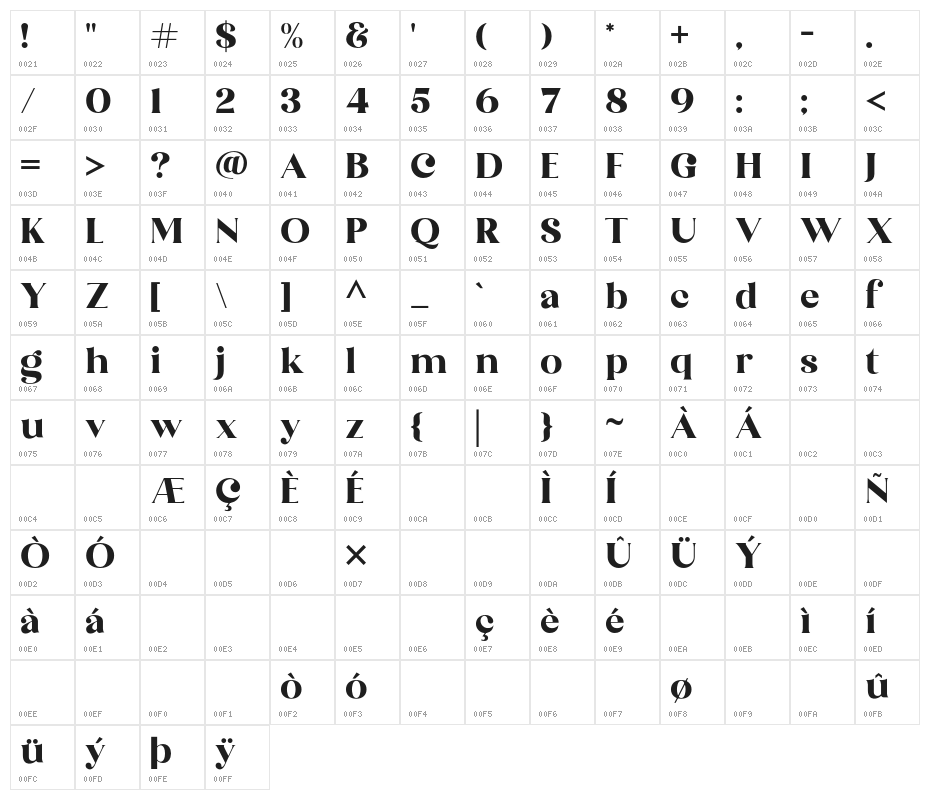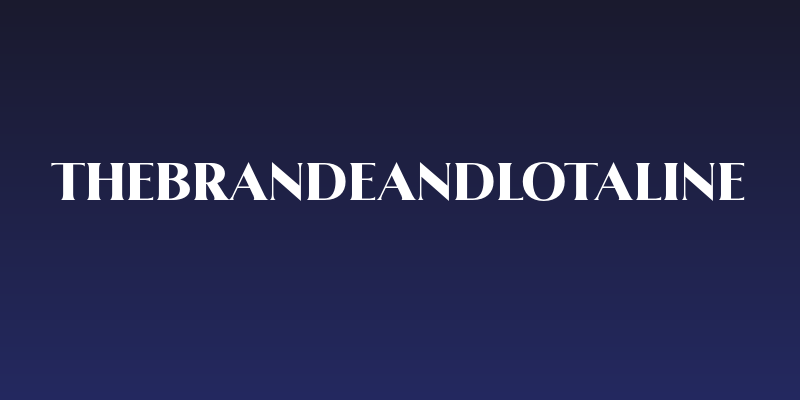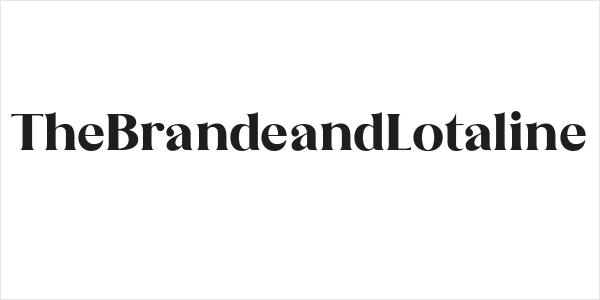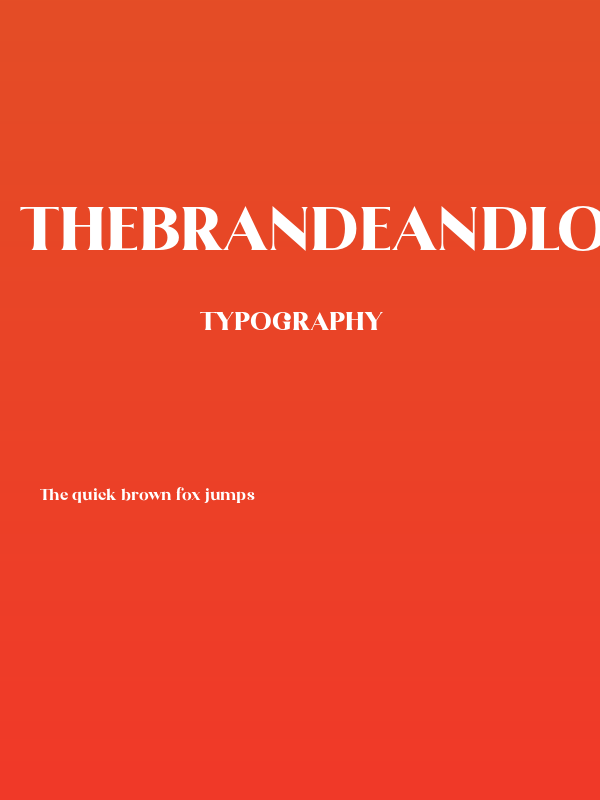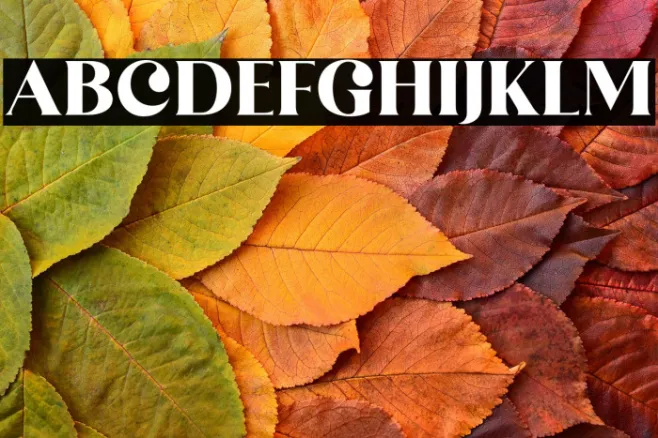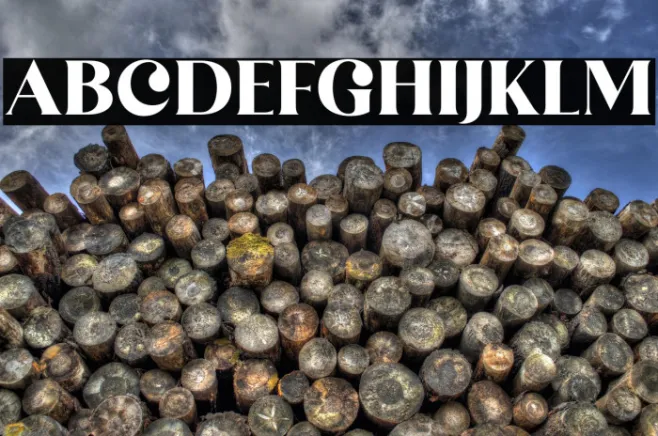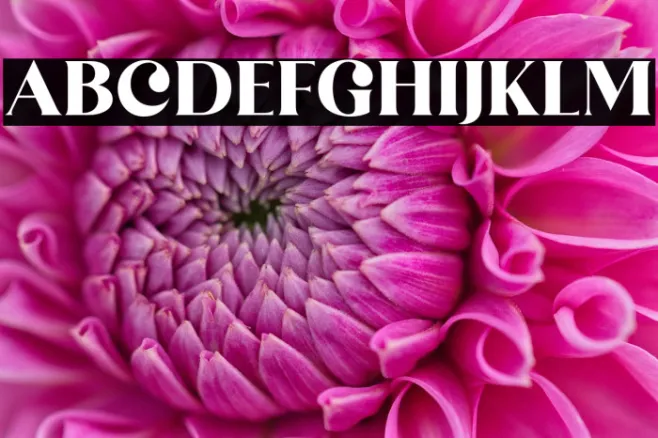
TheBrandeandLotaline Font
TheBrandeandLotaline Description
This font features a bold and striking serif style with high contrast between thick and thin strokes, giving it a dramatic and elegant appearance. The uppercase letters are particularly bold, with sharp, angular serifs that add a sense of authority and sophistication. The lowercase letters maintain a consistent style, with rounded forms that balance the sharpness of the serifs. The numerals are equally bold and maintain the high contrast seen in the alphabet, making them stand out clearly. Special characters are designed with the same attention to detail, ensuring a cohesive look across all glyphs. This font is ideal for making a strong visual impact, suitable for headlines and titles where readability and style are paramount.
| Proposed Projects | Ideal for editorial design, luxury branding, book covers, and high-impact headlines. |